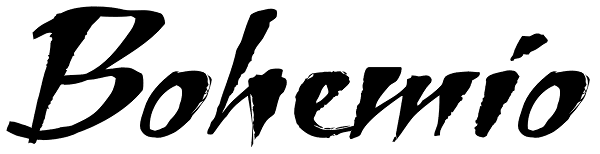
Bohemio
Bohemio was designed in memory of Gunter Böhmer, an artist famous for his many book covers of the 1950s in Germany. The cover I took as an inspiration for this font is that of a book called Stiller (by Max Frisch). Bohemio sounds similar to "Böhmer...